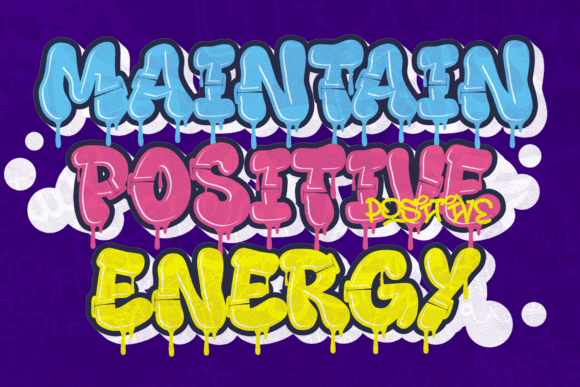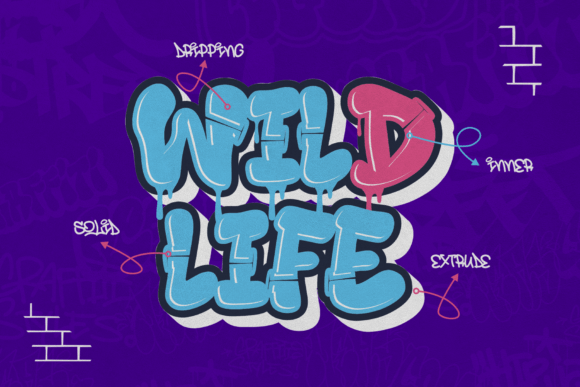
Introduction to Rift Punk Font
Imbue your designs with the vibrant energy of street culture with Rift Punk, a bold and cheeky graffiti-inspired display font.
This font marvels in eye-catching rounded characters subtly garnished with intricate graffiti nuances Sensationally constructed with a layered 3D style, Rift Punk injects an unmissable burst of urban personality and street art charisma into your designs.